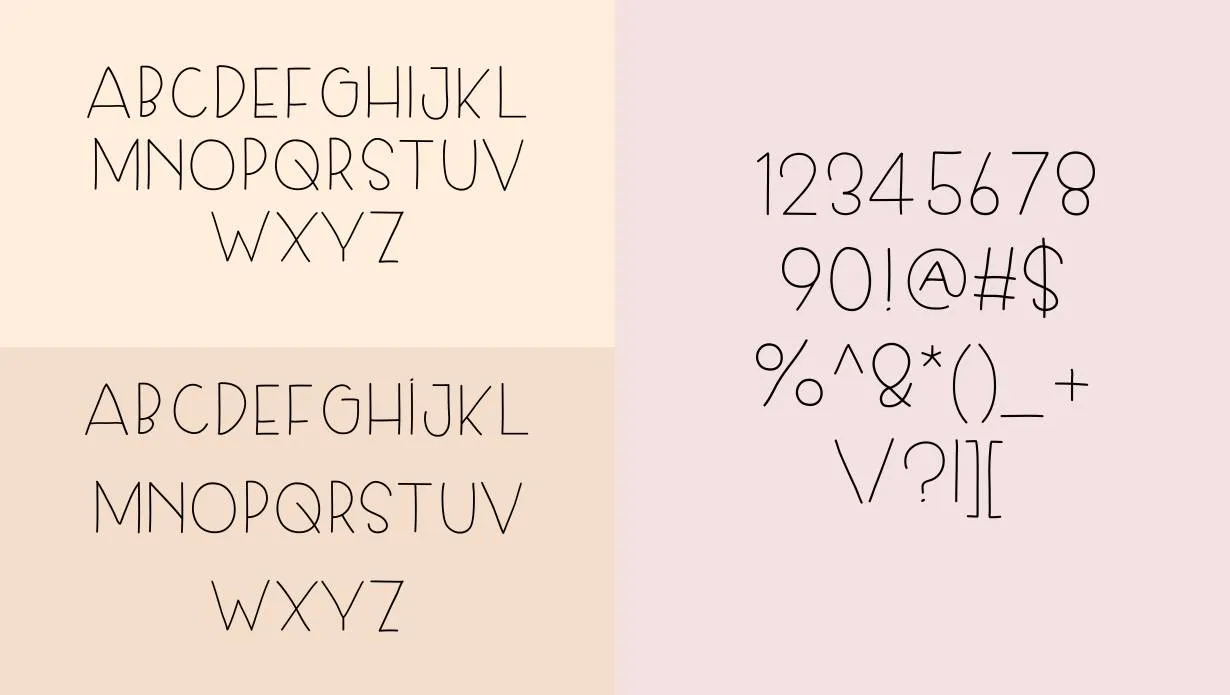
The Skip Leg Day font is a playful jest, a font that doesn’t take itself too seriously. Each letter seems to stretch and humorously scoff at the idea of skipping workouts.
Using this font imparts a light-hearted and jovial tone to your text, injecting humor and a relaxed vibe into your messages. The Honey Bunny Font can be used to create exceptional designs with significant impact.
| Name | Skip Leg Day Font |
| Designer | Dilem Akiner |